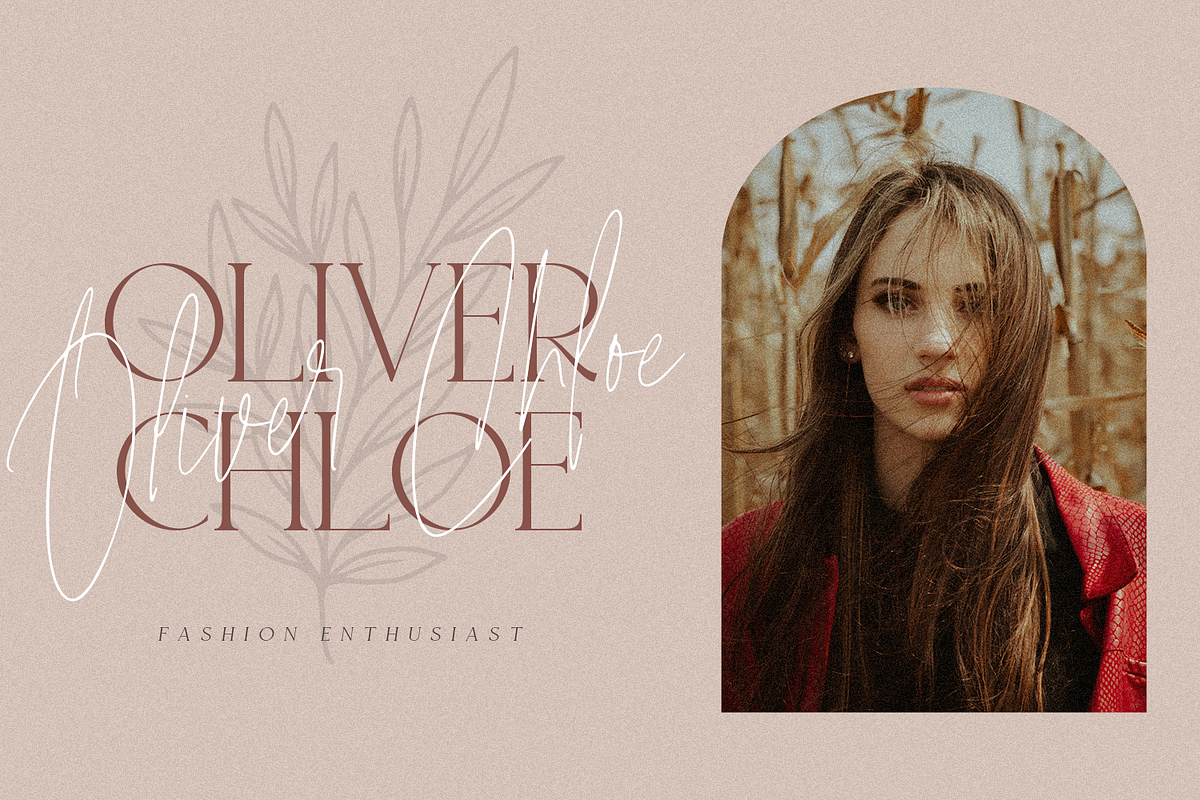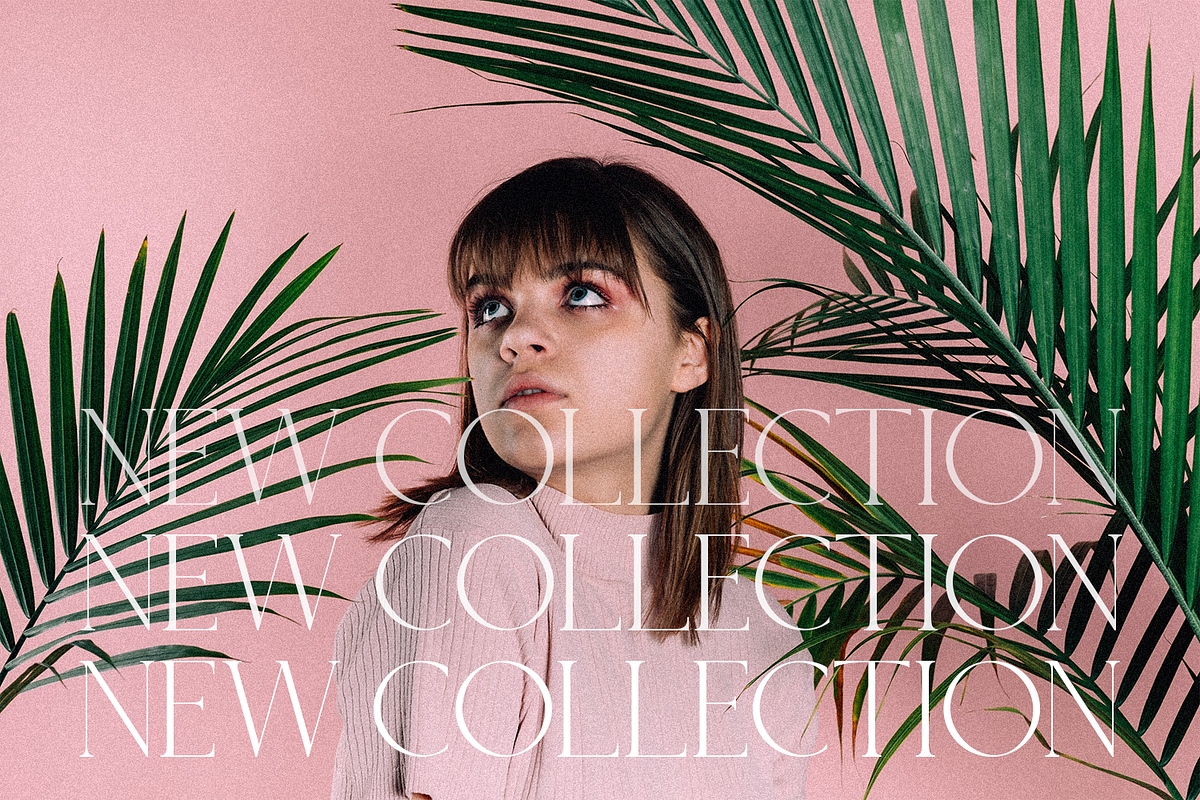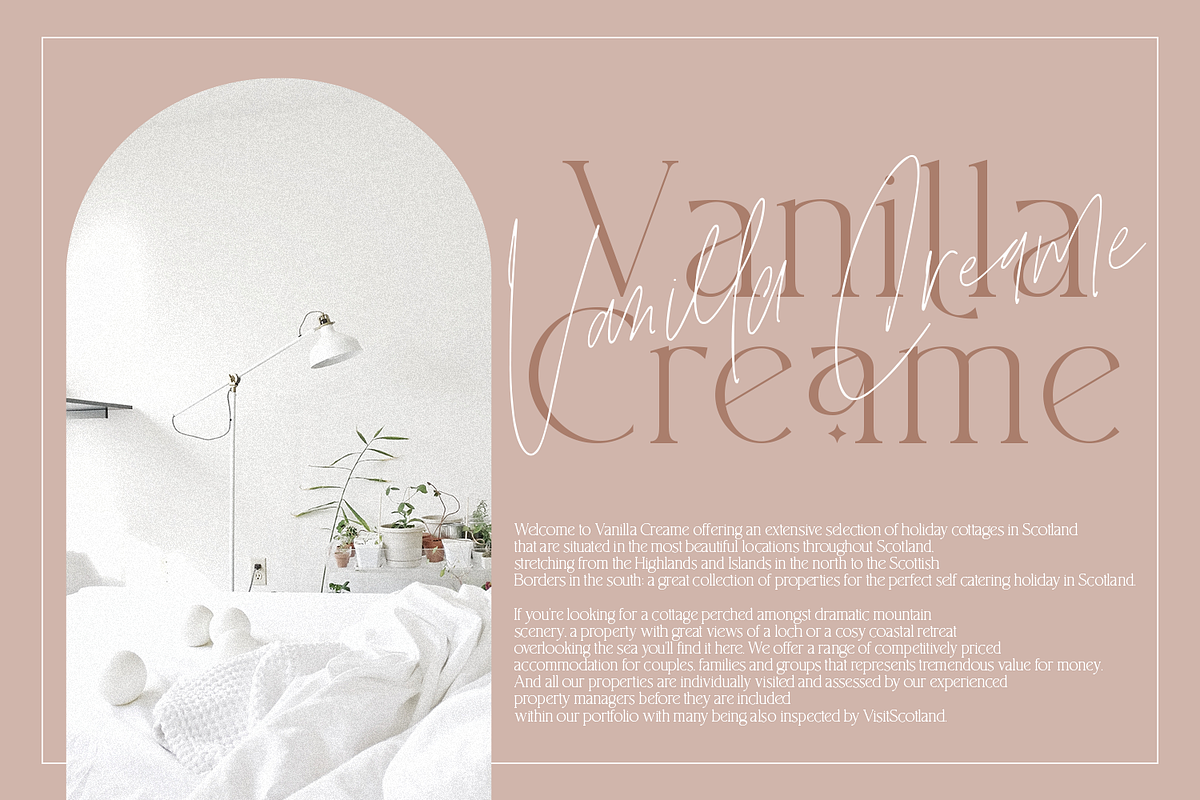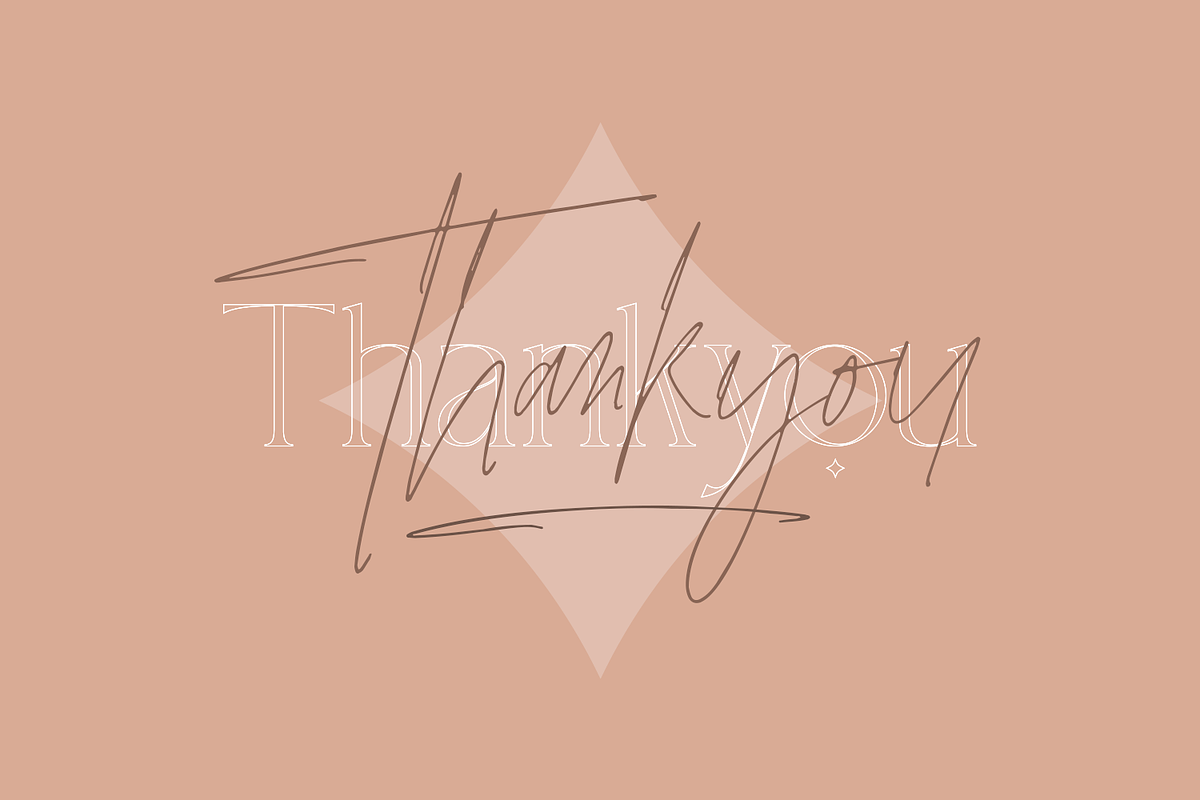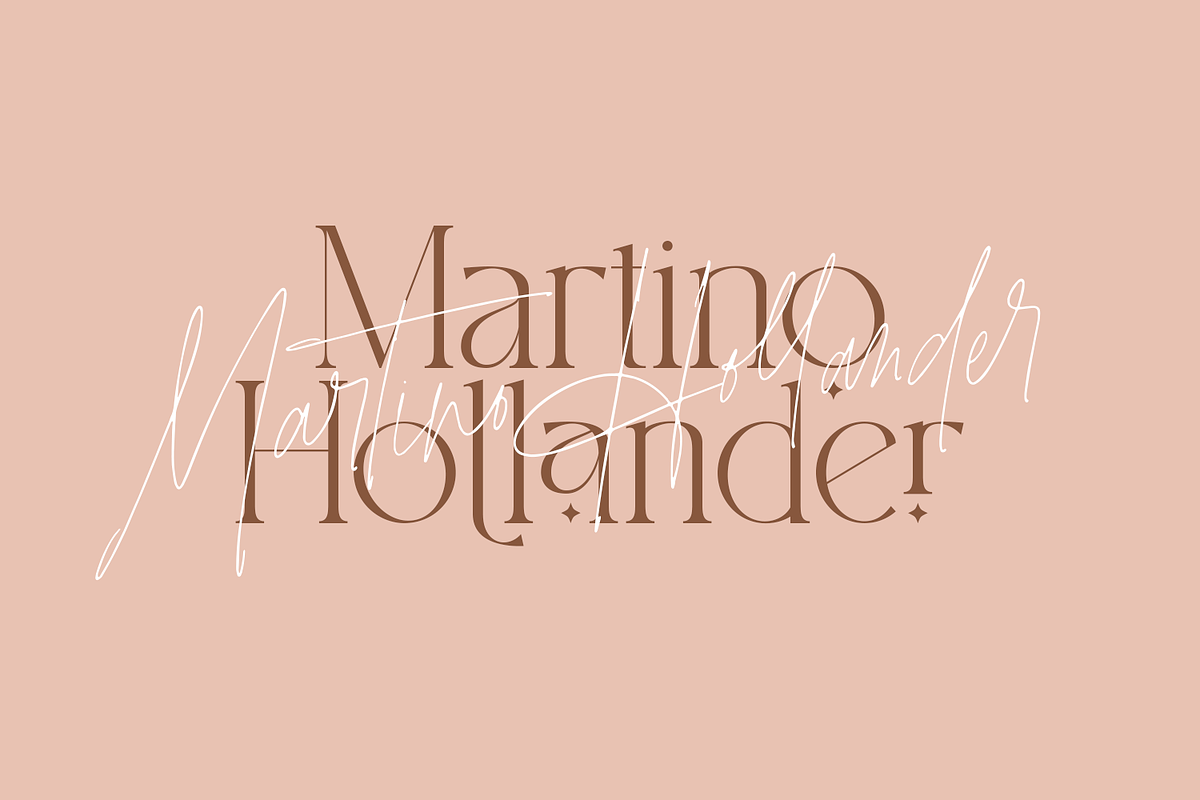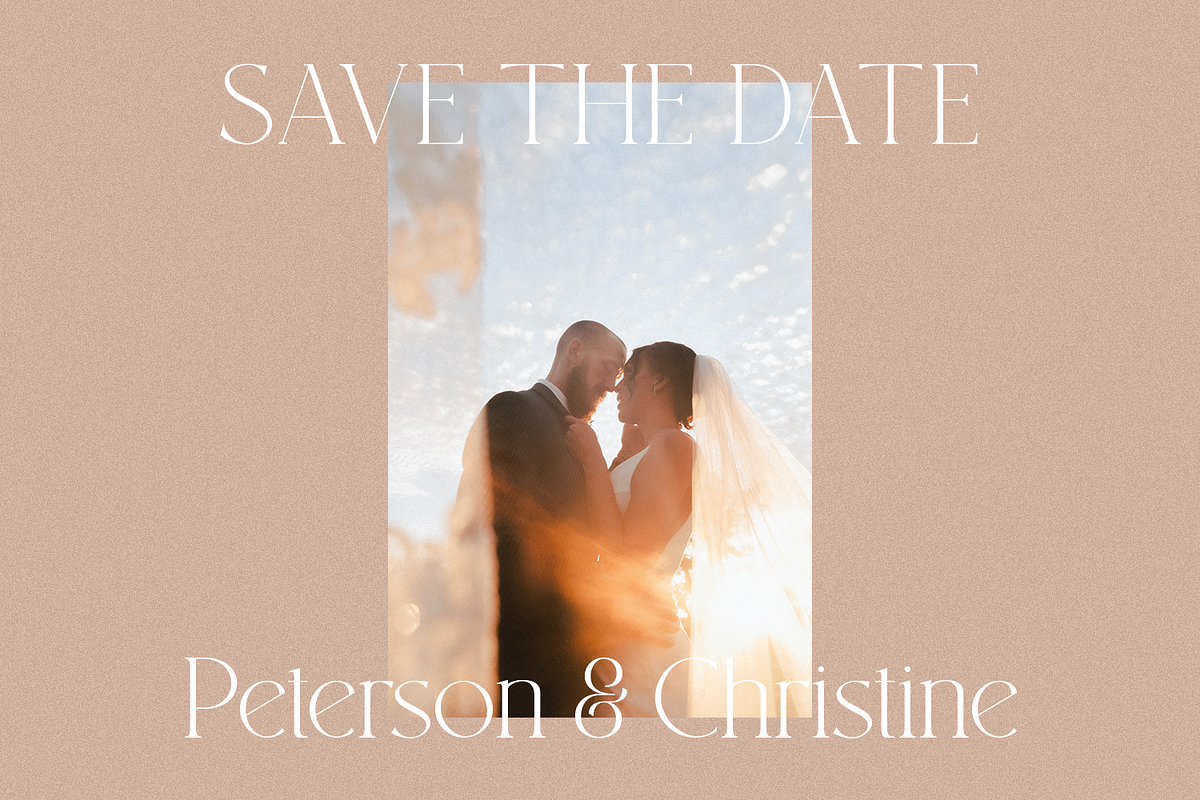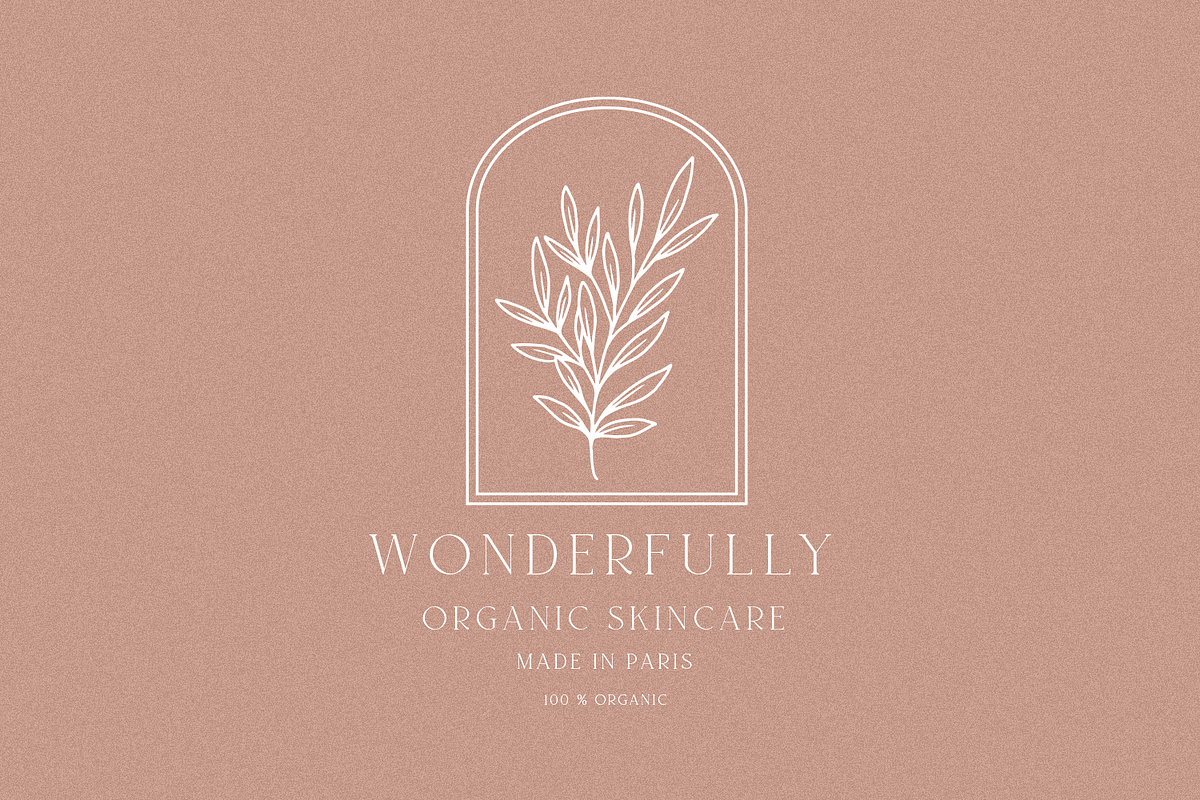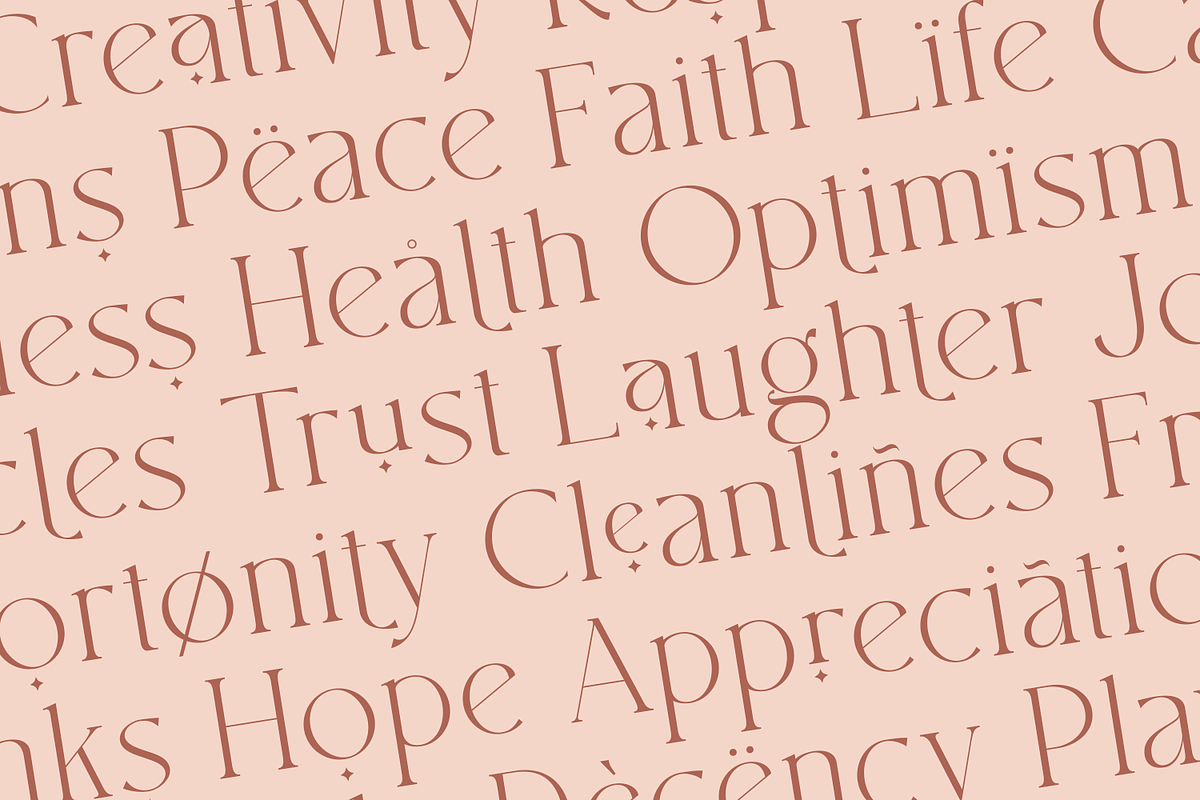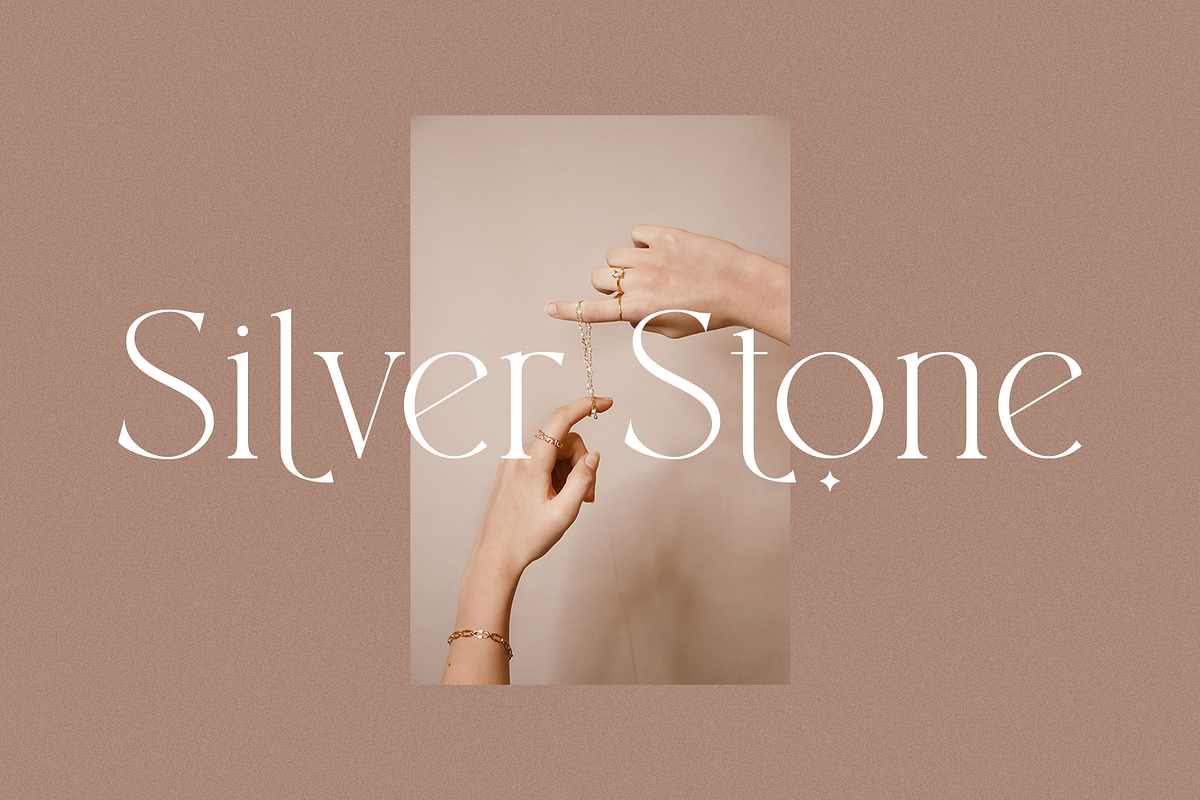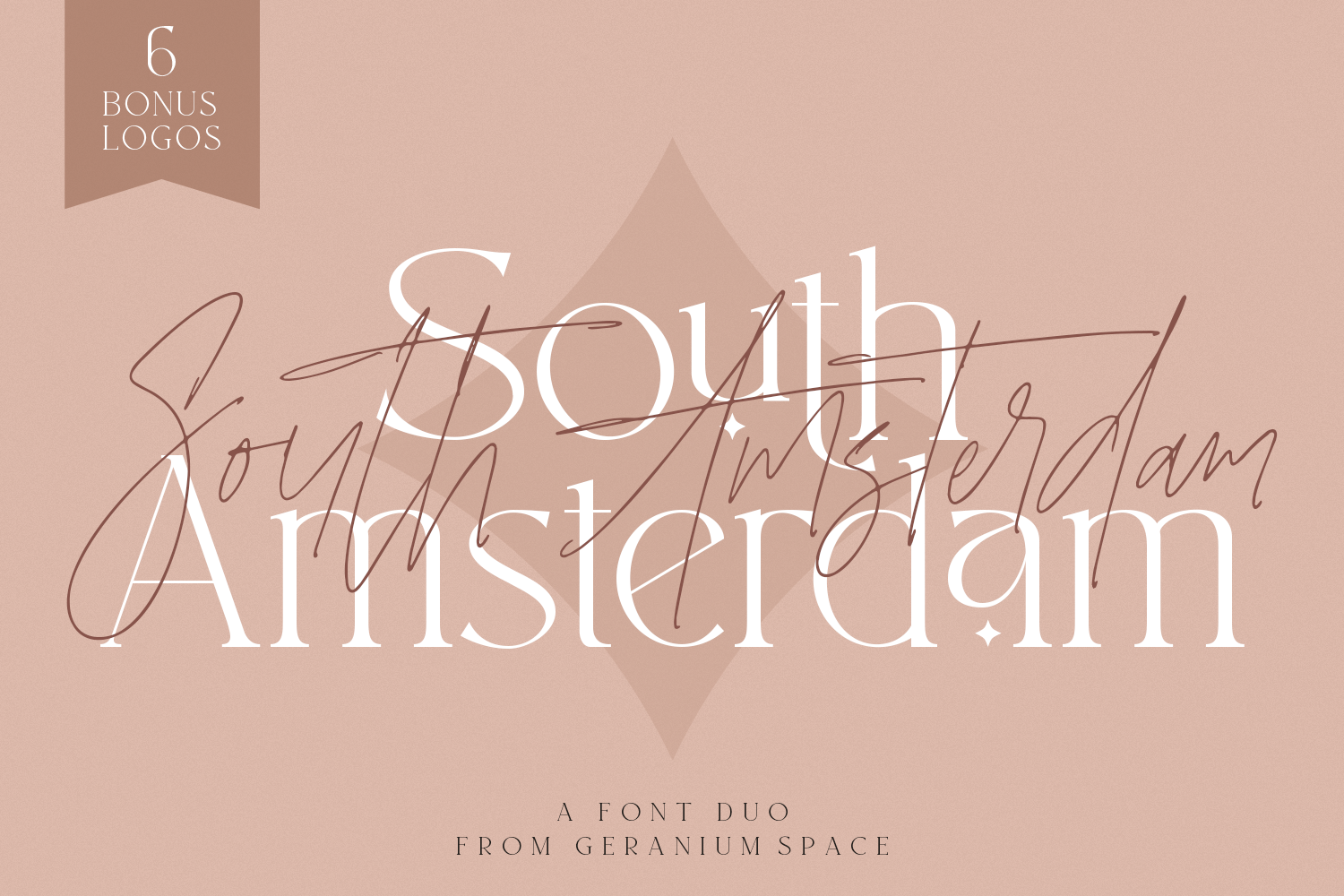
South Amsterdam Font Duo & Logos
Hello everyone, let me introduce the South Amsterdam A Font Duo with a modern serif style and a modern handwritting style with the addition of Premade logos & vector logos. the perfect mix for magazine, logo, invitations, product designs, and more
- 100+ Ligatures (South Amsterdam Handwritten)
- 6 Premade Logos
- 30+ Vector logos
- Multilanguage